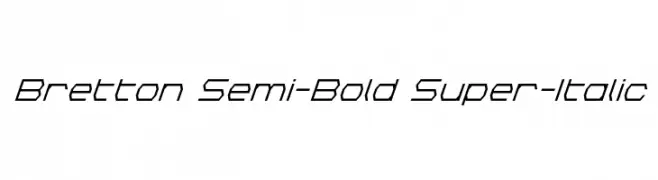
A modern, geometric, semi-bold italic font with a sleek and dynamic style.
A modern, geometric font with a semi-italic slant and sleek, technical design.
A sleek, geometric italic font with a modern, technical style.